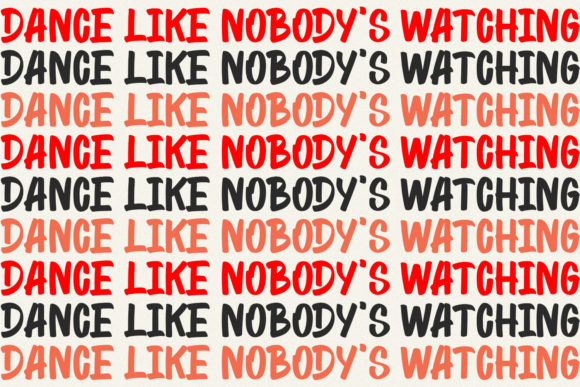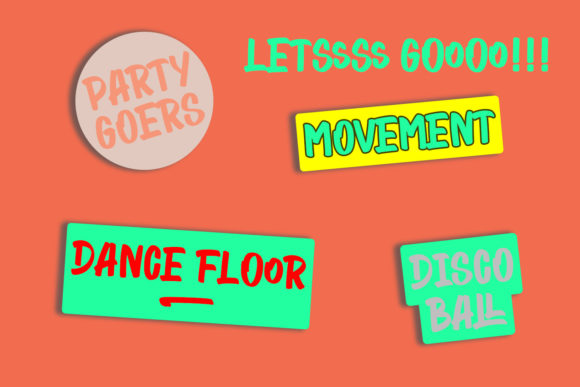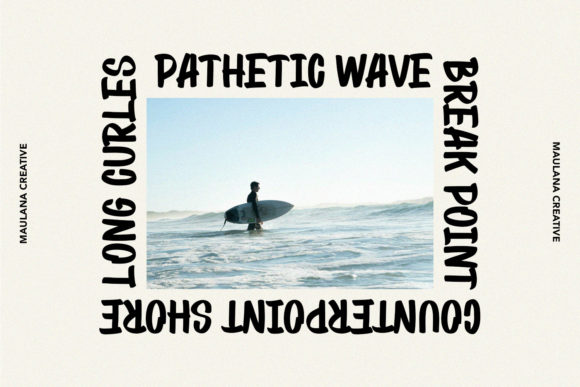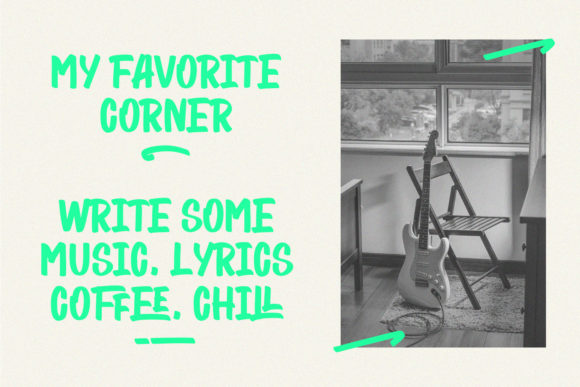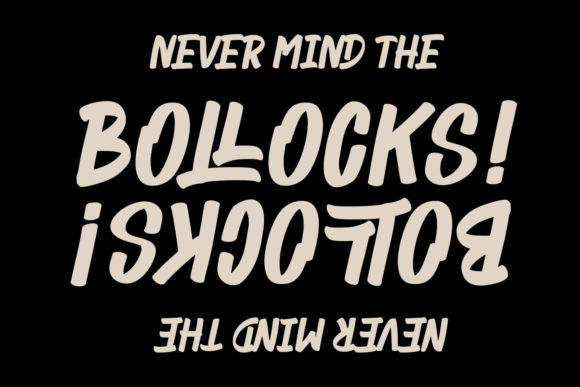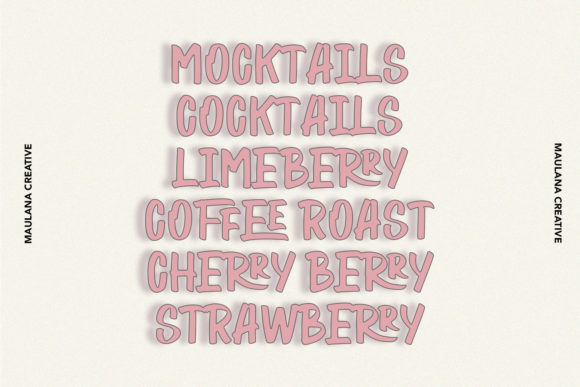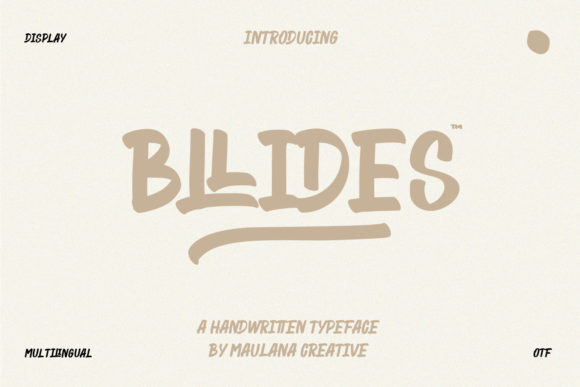
The Bllides Font: A Bold, Brushed Beauty for Your Creative Projects
Have you ever been in the middle of a design project, and suddenly, you’re stuck on finding the perfect font? I recall a recent experience where I was crafting a greeting card for a friend’s birthday, and my usual go-to fonts just weren’t cutting it. That’s when I stumbled upon the Bllides font, and let me tell you, it’s been a game-changer! 🎉
An Honest Review of Bllides Font
What I Love About Bllides ✨
- 💥 **Bold and Brushed**: Bllides boasts a unique, bold, and brushed look that’s perfect for making a statement in any design project.
- ✅ **Versatile**: Whether you’re working on digital designs, crafting, presentations, or greeting cards, Bllides fits right in.
- 🌈 **Trendy**: This font has the perfect amount of trendiness, making your projects look modern and fresh.
- 👍 **Easy to Read**: Despite its bold nature, Bllides remains surprisingly easy to read, even in smaller sizes.
- ⚠️ **Limited Use Cases**: While Bllides is incredibly versatile, there are instances where a more traditional or serif font might be more suitable. For example, lengthy body text or academic papers might not be the best fit.
- 🤔 **Overuse**: Like any bold font, there’s a risk of overusing Bllides. It’s essential to balance it with other fonts to maintain visual interest.
The Backstory Behind Bllides
Bllides was designed with the intention of blending modern trends with a classic, brushed look. The designer aimed to create a font that could easily be used for both digital and print projects, offering a fresh take on traditional bold fonts. The result is a versatile and stylish font that’s perfect for creative hobbyists and professionals alike.
| What makes Bllides unique? | Bllides stands out with its bold, brushed appearance, making it perfect for designs that need a modern yet rugged feel. |
| Is Bllides suitable for body text? | While Bllides is primarily designed for headlines and display text, it can be used for short paragraphs. For longer body text, consider pairing it with a more readable font. |